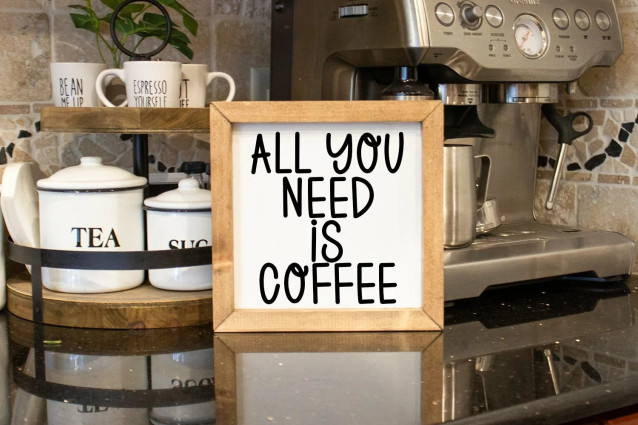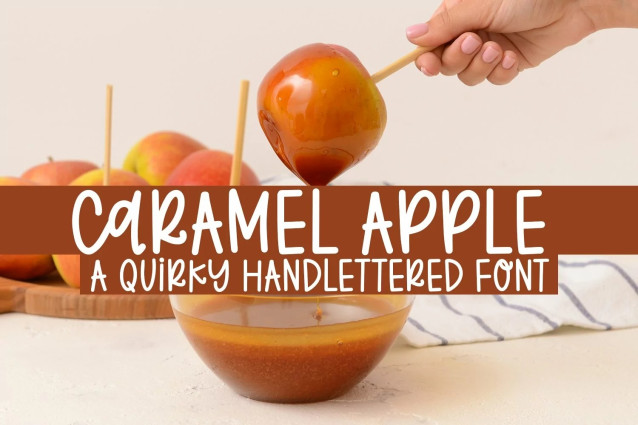
FB Caramel Apple Font
FB Caramel Apple Font – A Quirky Handlettered Font. It would be a perfect choice to design posters, affiches, logos, t-shirt and magazine prints, eye-pleasing typographic designs and more.